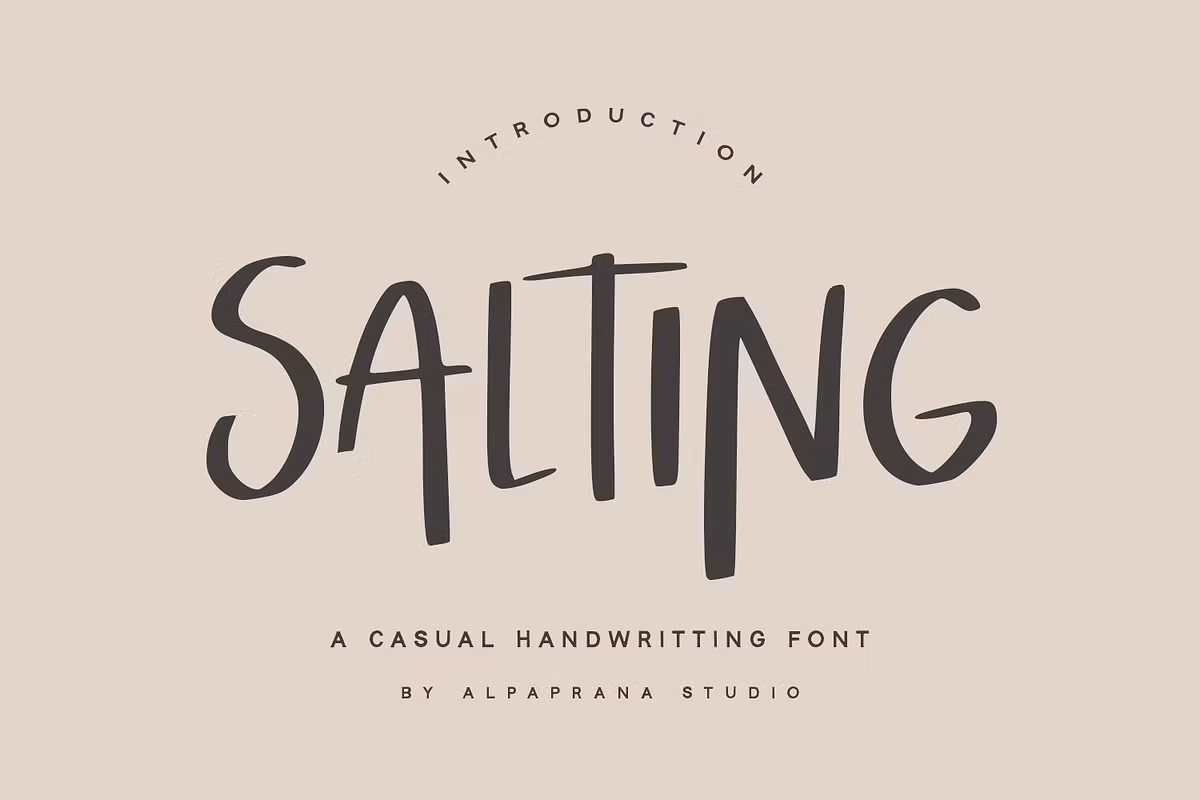
Salting Handwritten Font Free Download is a handwritten display font with natural and modern feels. It will be perfectly used for branding, logo design, lettering, logotype, clothing, posters, magazines, packaging, shopping bags, t-shirts, book covers, photography, special events, and other design projects. You can download Salting Handwritten Font Free Download for personal use to explore its features. For commercial applications, please ensure you purchase the appropriate license to comply with usage rights.